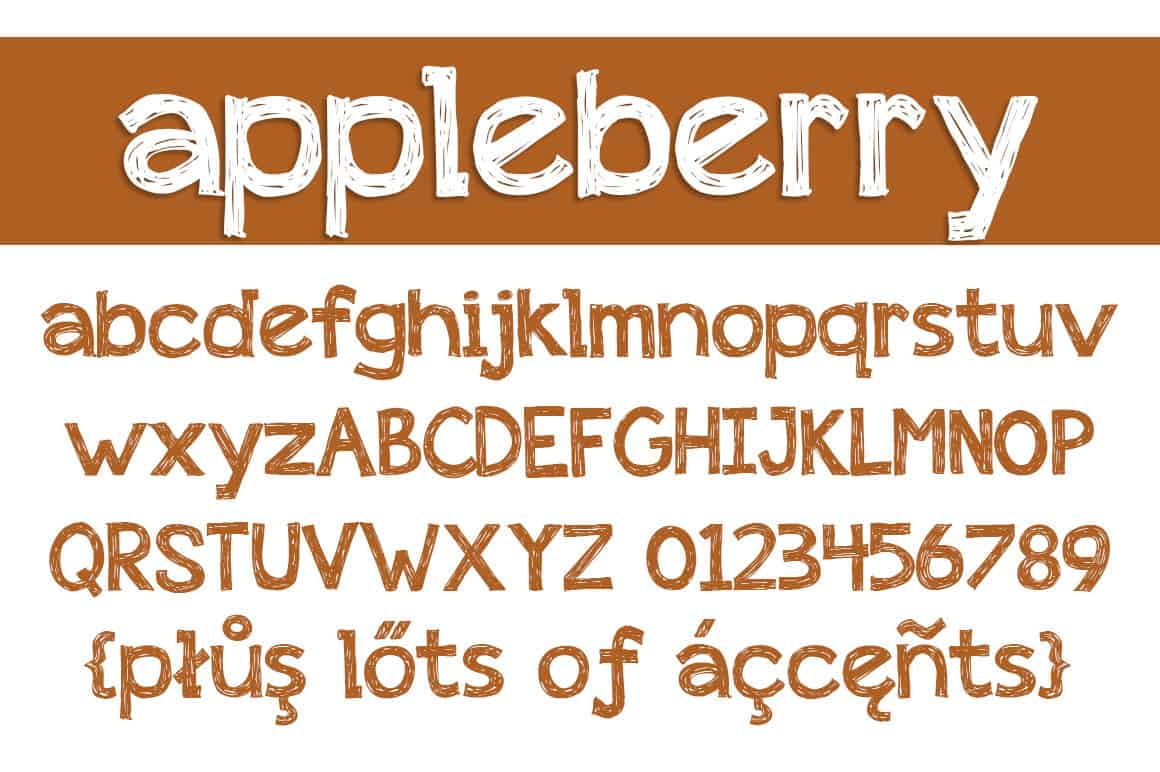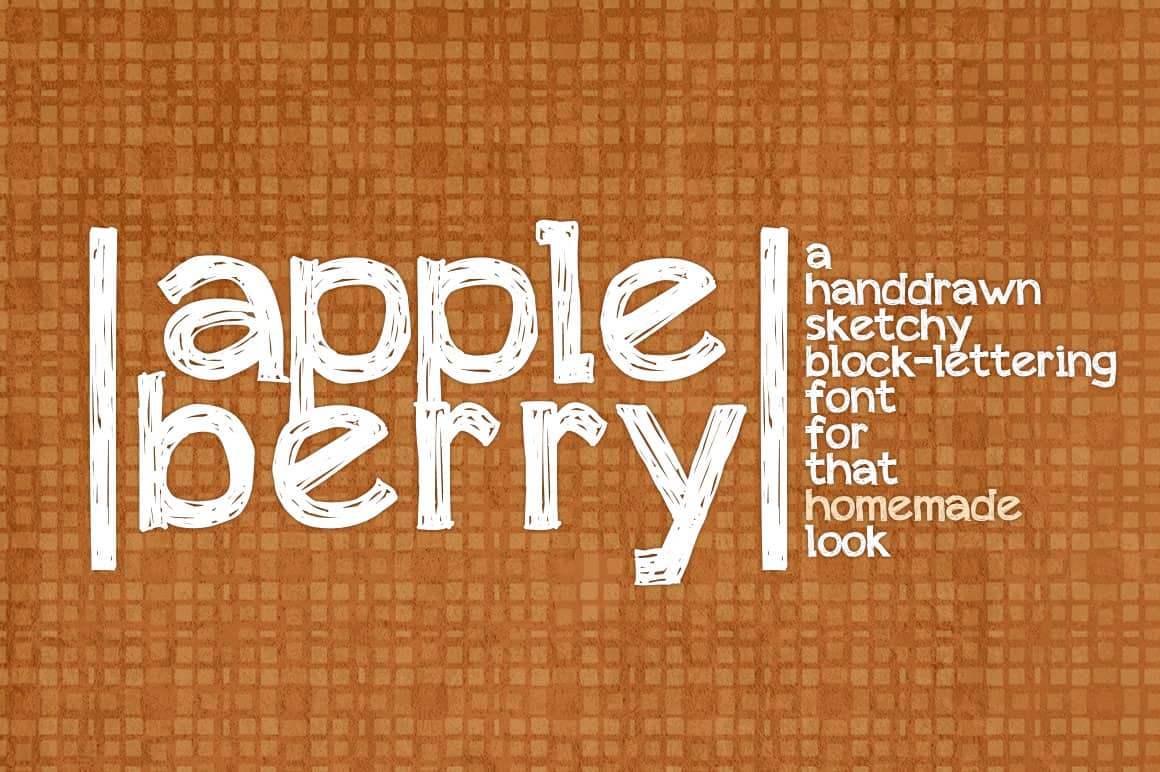
Appleberry Font
Appleberry Font Letters
About the Appleberry Font
The Appleberry font is a hand drawn sketchy font created in 2011 by Brittney Murphy Design. Appleberry features block-lettering and 447 characters and supports most Latin based languages. With over 1 million downloads worldwide, it has become popular with many armature designers on their Facebook and Instagram posts. The Appleberry font is great for adding a lighthearted feeling to your graphic design products.